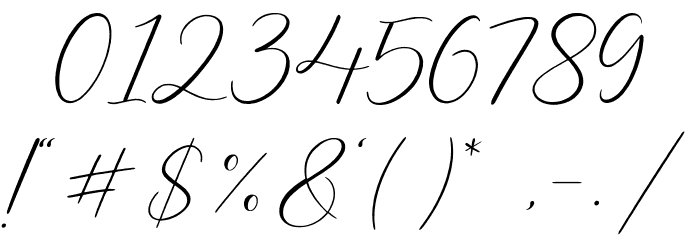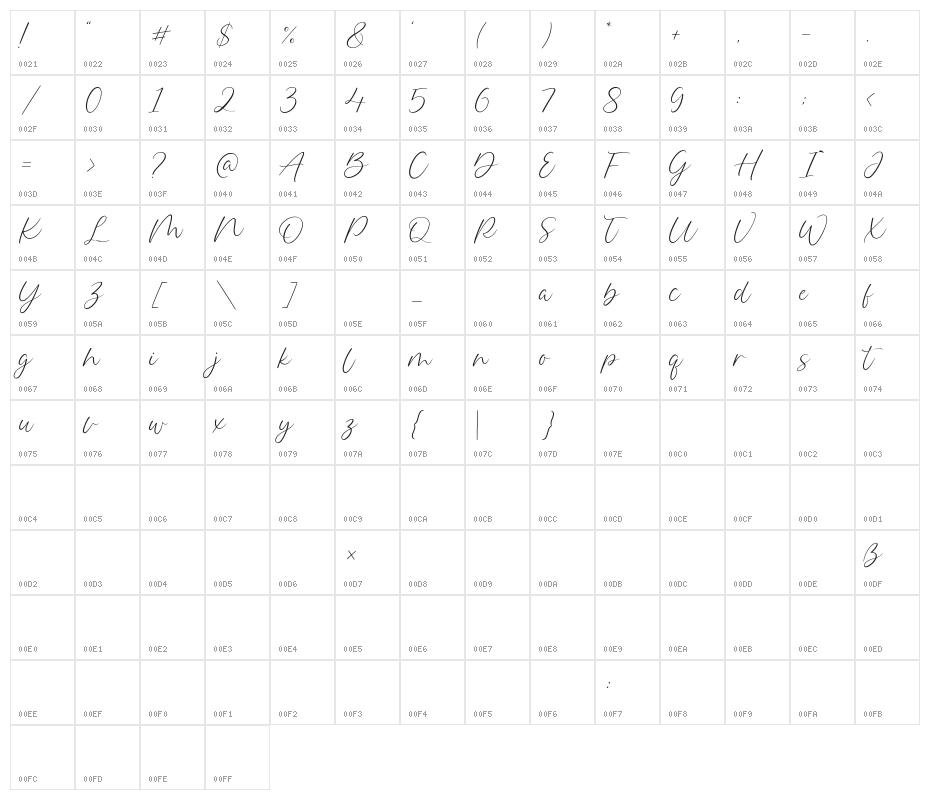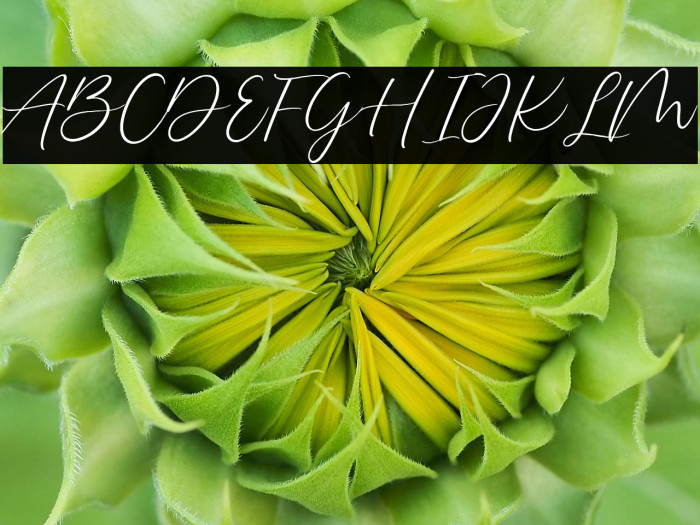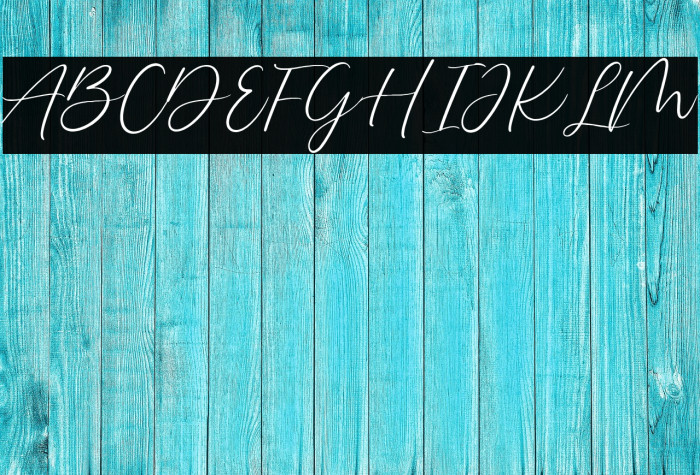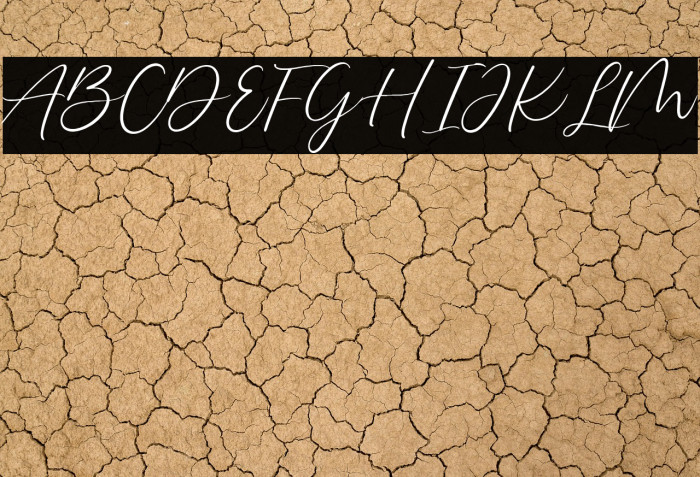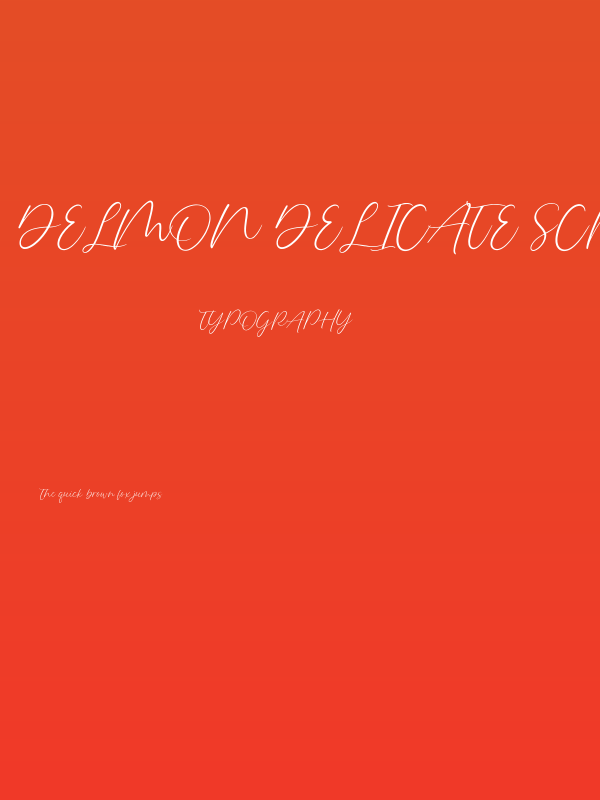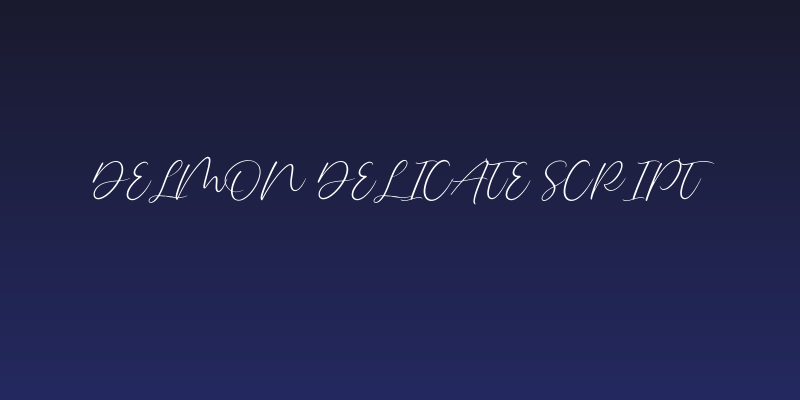
Delmon Delicate Script Font
Delmon Delicate Script Description
This font exudes elegance and sophistication with its delicate, flowing script style. The characters are gracefully connected, creating a seamless and fluid appearance. The strokes are thin and consistent, giving it a refined and airy feel. The uppercase letters are slightly more elaborate, while the lowercase letters maintain a smooth and continuous flow. The numerals and special characters are crafted with the same attention to detail, ensuring a cohesive look throughout. This font is perfect for projects that require a touch of elegance and a personal, handwritten feel.
| Use Case | Logos, Invitations, Stationery |
| Proposed Projects | Ideal for wedding invitations, greeting cards, branding, and elegant stationery. |